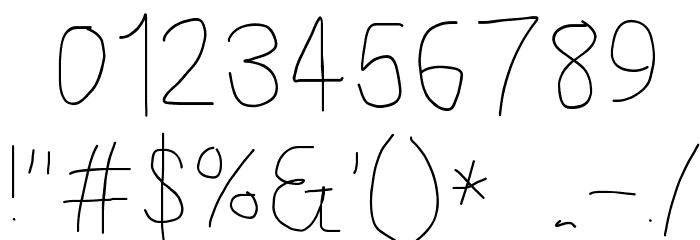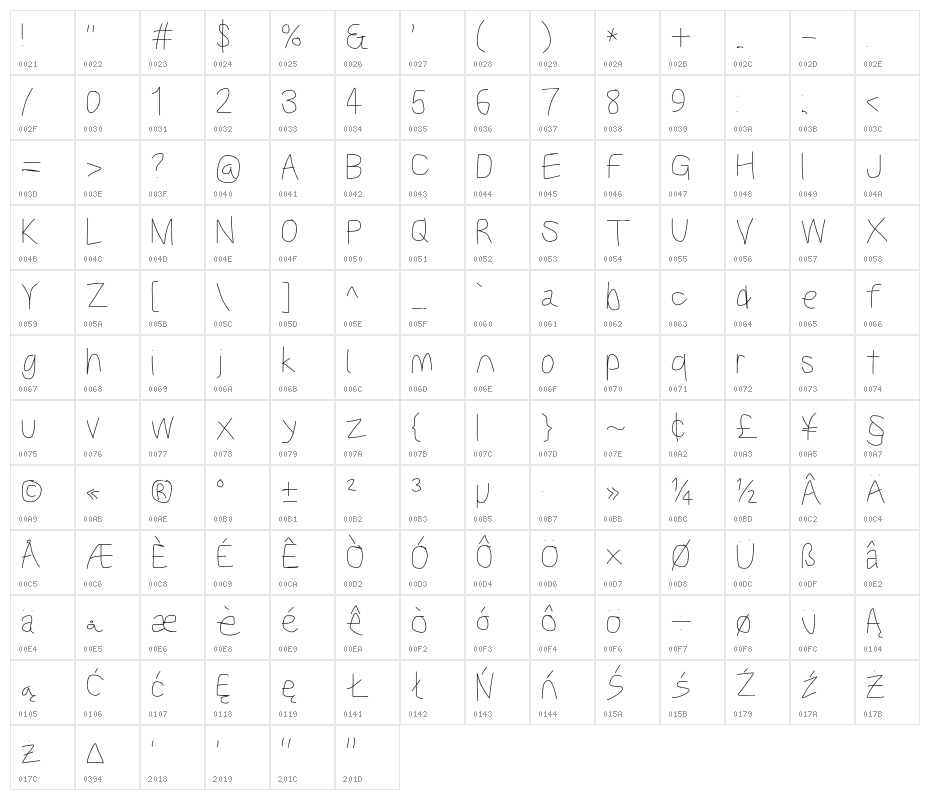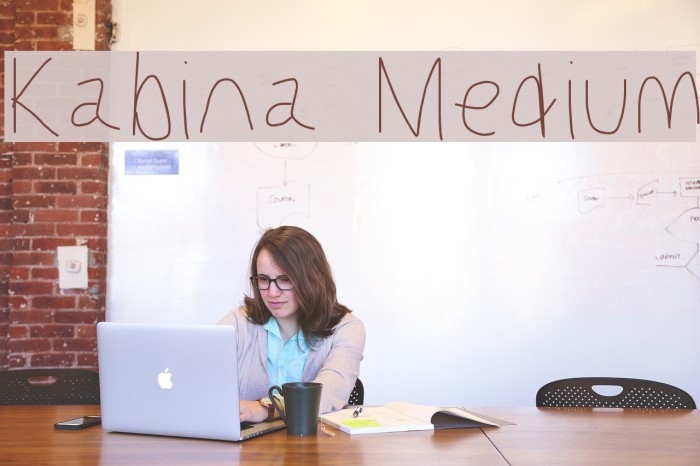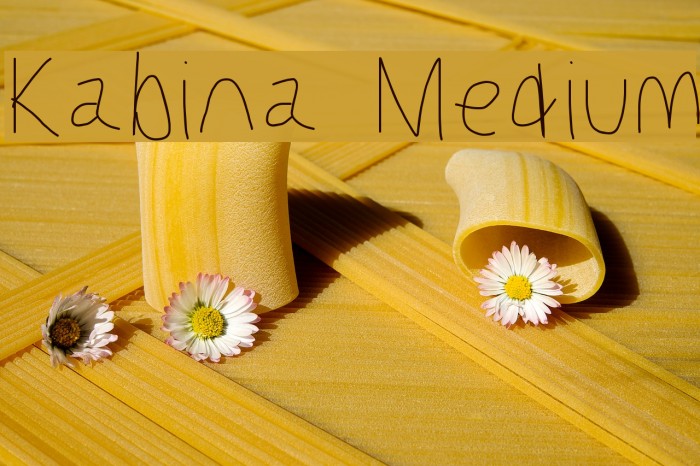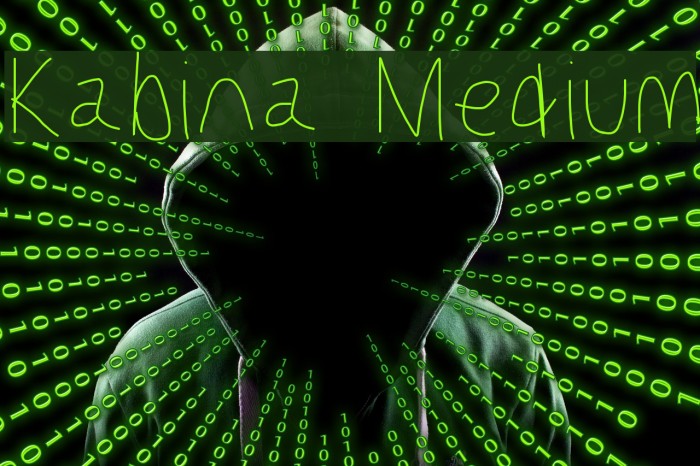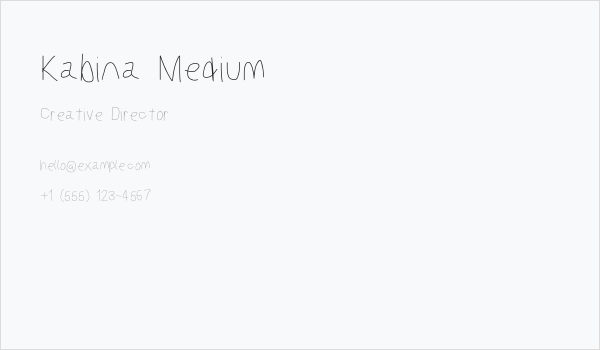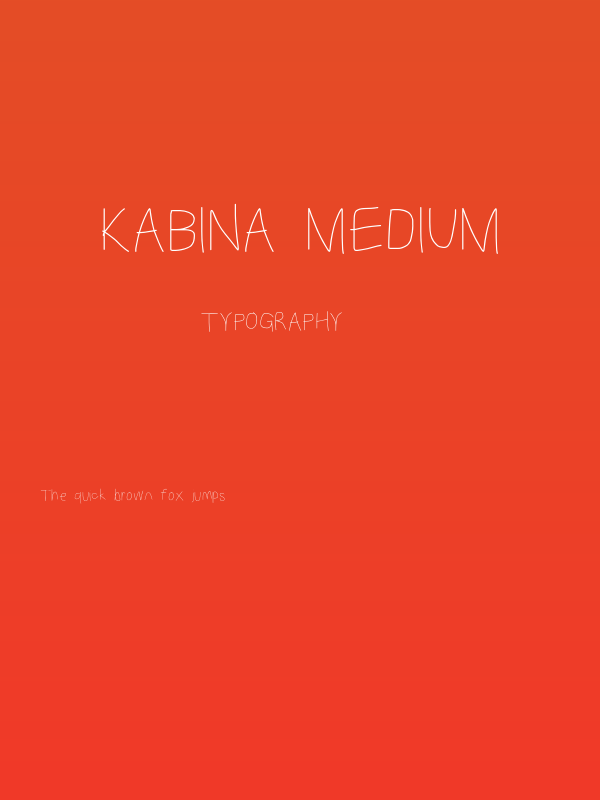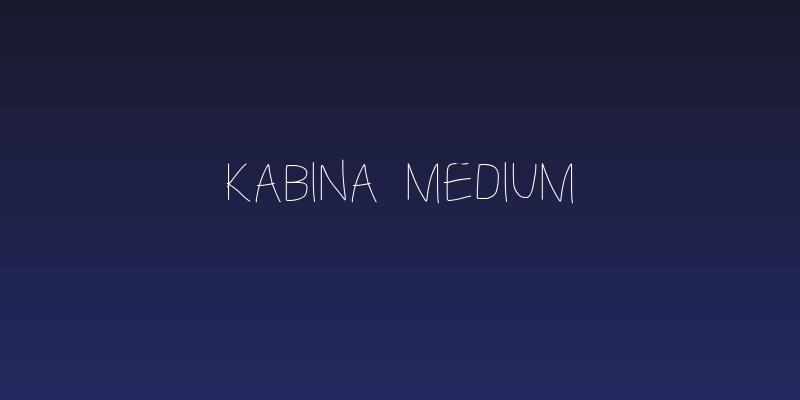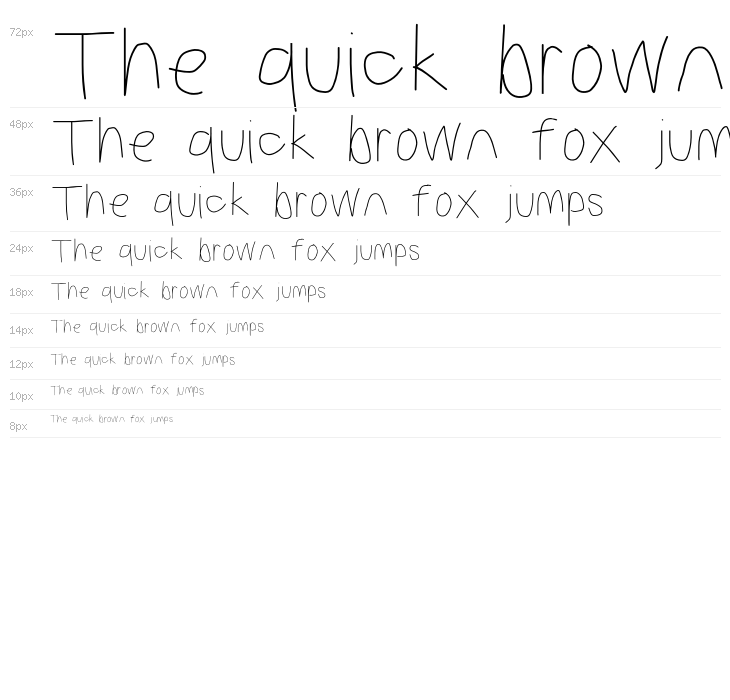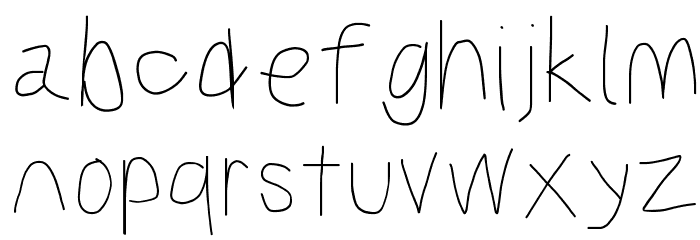
Kabina Medium Font
Kabina Medium Description
This font features a playful, handwritten style with a casual and friendly appearance. The characters are slightly irregular, giving it a personal touch that mimics natural handwriting. The strokes are thin and consistent, with a slight tilt that adds to its informal charm. The uppercase and lowercase letters maintain a uniform height, while the numerals and special characters are crafted to match the overall whimsical aesthetic. This font is ideal for projects that require a touch of personality and warmth.
| Use Case | Headlines, Informal text, Personal projects |
| Proposed Projects | Ideal for greeting cards, children's books, personal blogs, and informal branding. |